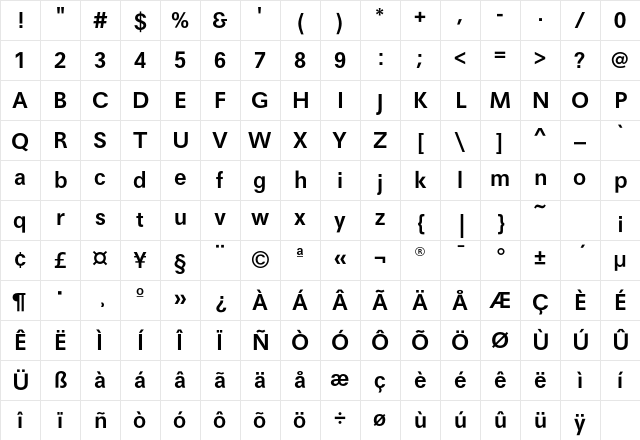
Complete MaximaEF-Medium Regular glyph index. Displaying only characters natively supported by MaximaEF-Medium Regular font.
MaximaEF-Medium is a composed and adaptable typeface that performs quietly and consistently across a wide range of design contexts.